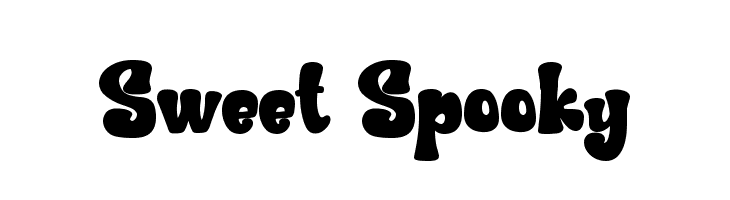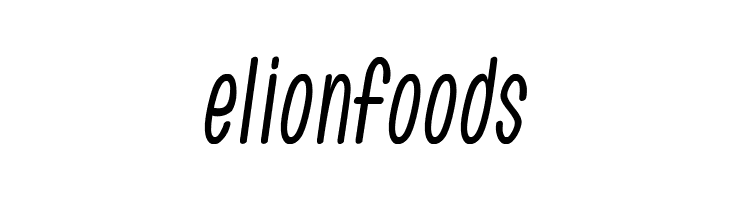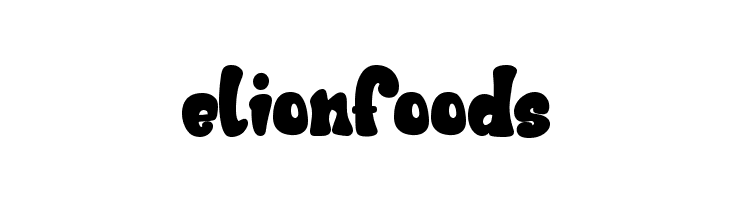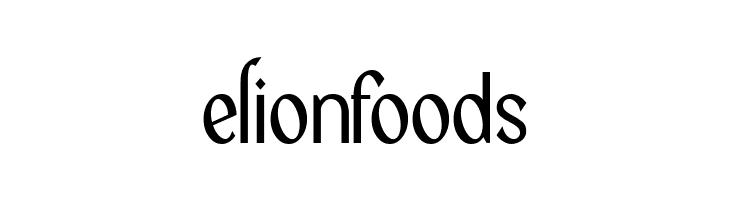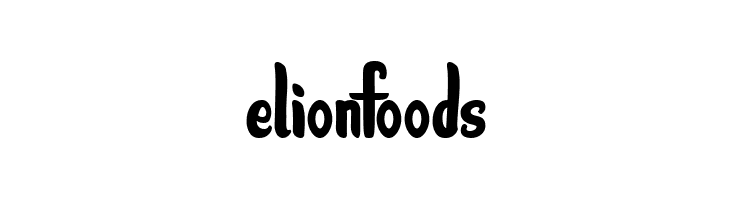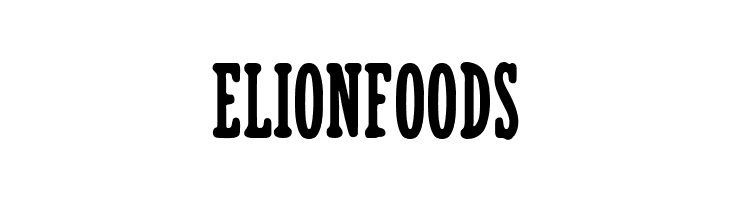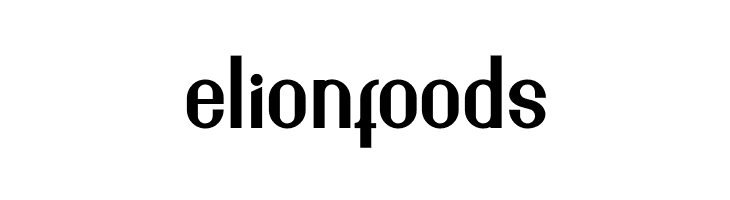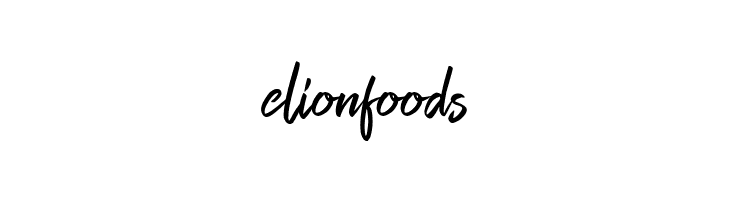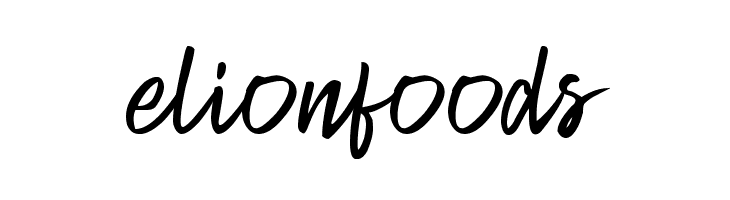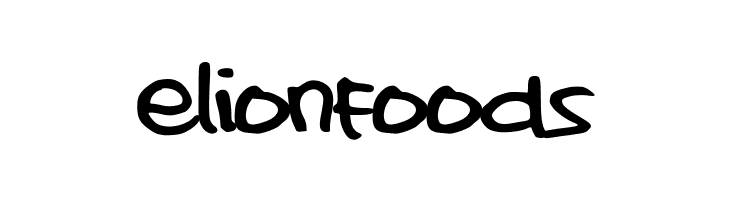
A playful, handwritten font with tall, narrow, and slightly slanted letters.
A bold, playful font with a whimsical and slightly spooky vibe.
A modern, elegant font with clean lines and a slightly condensed style.
A playful, bold handwritten font with rounded, slightly irregular characters.
A bold, playful font with rounded strokes and a slightly condensed style.
A bold, modern font with a sleek, slightly condensed style.
A dynamic handwritten font with fluid, slightly slanted letterforms and playful lowercase characters.
A dynamic and energetic script font with fluid, slightly slanted letterforms.
A playful, bold font with rounded, slightly irregular letterforms.
A bold, slightly italicized font with a modern, industrial feel.